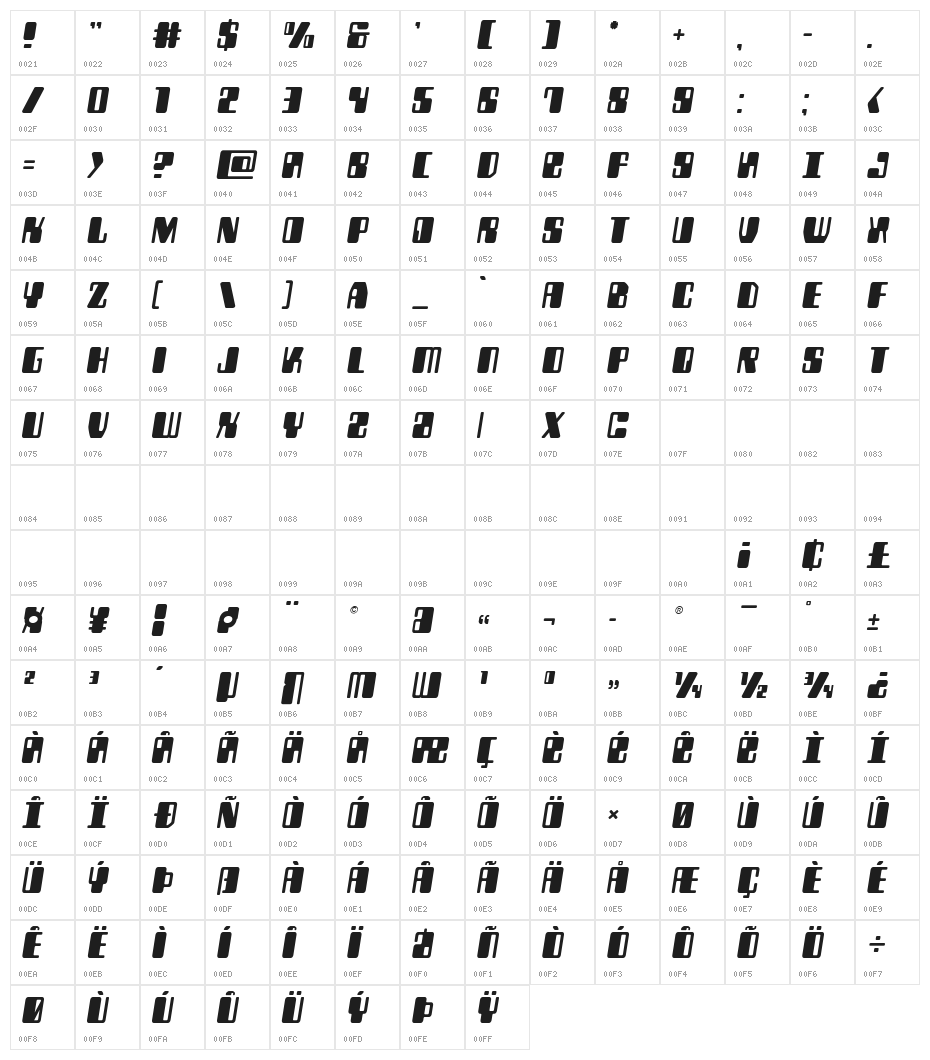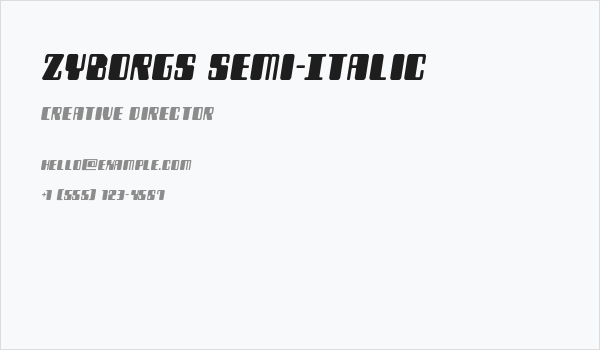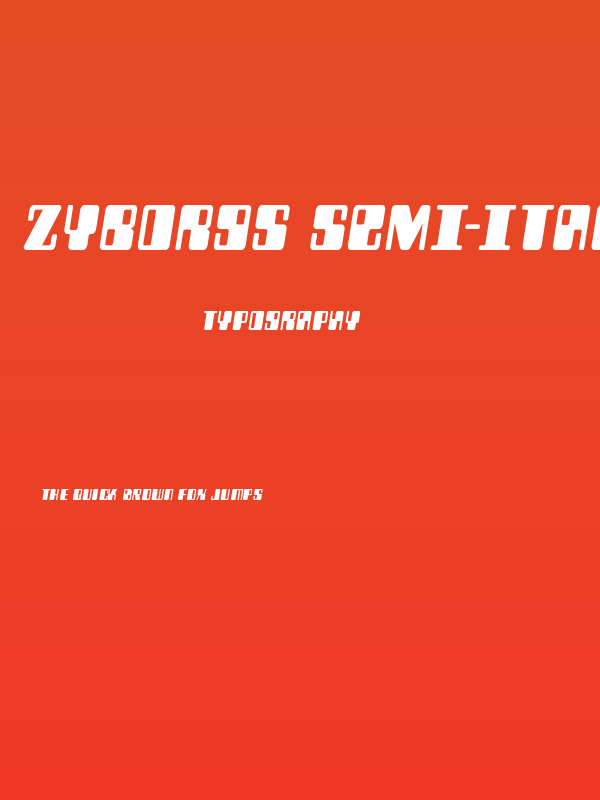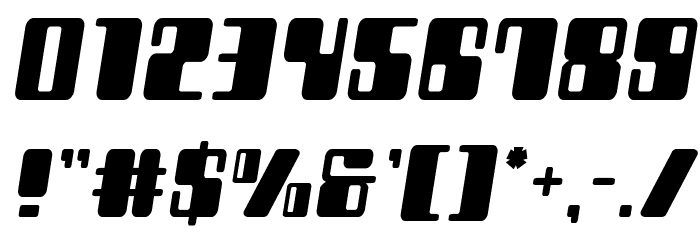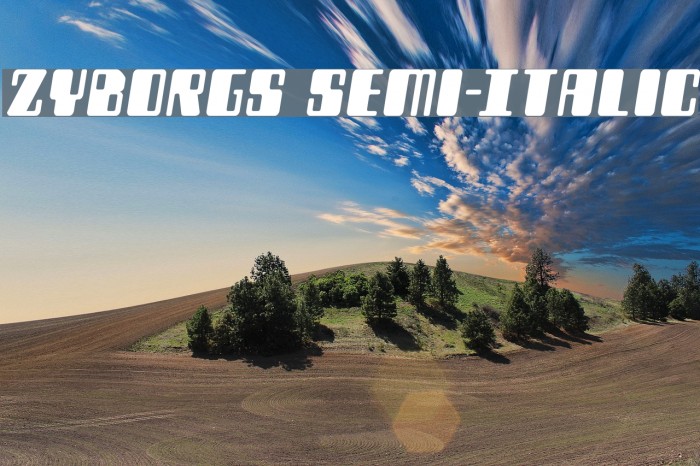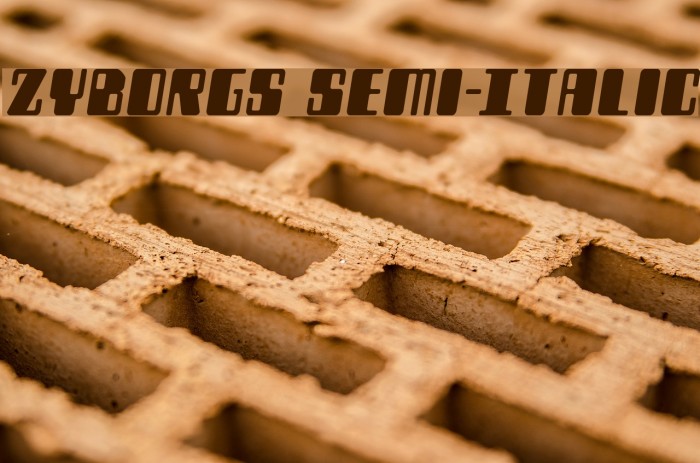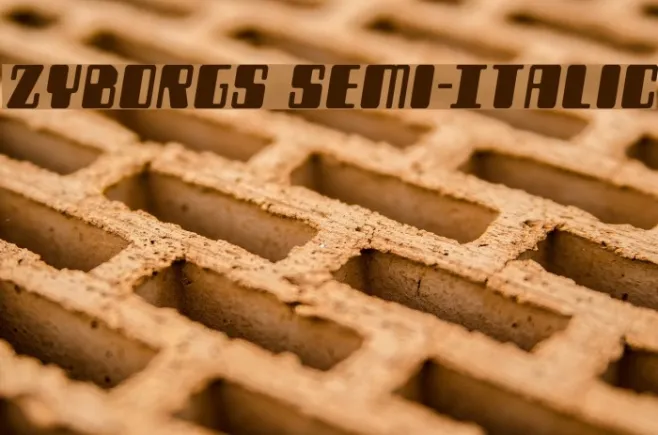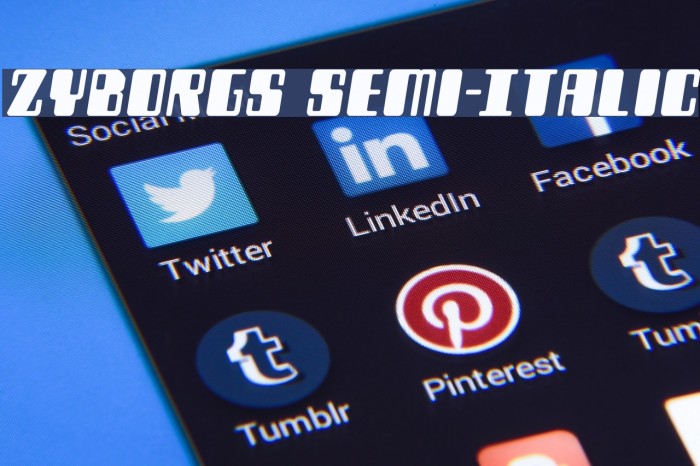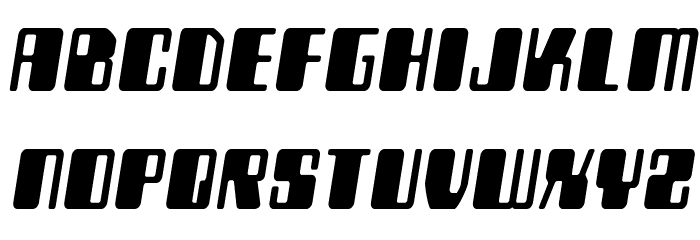
Zyborgs Semi-Italic Font
Zyborgs Semi-Italic Description
This font exhibits a bold and futuristic design with semi-italicized characters that convey a sense of movement and modernity. The letters are blocky with rounded edges, giving them a distinctive and robust appearance. The uppercase and lowercase letters maintain a consistent style, with the lowercase slightly smaller but equally bold. Numbers are similarly styled, ensuring uniformity across all characters. Special characters are included, matching the overall aesthetic with a strong, cohesive look. The font's unique style makes it ideal for projects that require a modern, tech-inspired feel.
| Proposed Projects | Ideal for technology branding, sci-fi themed projects, video game titles, and futuristic posters. |